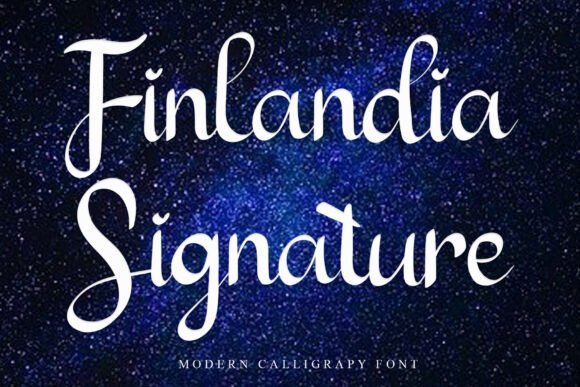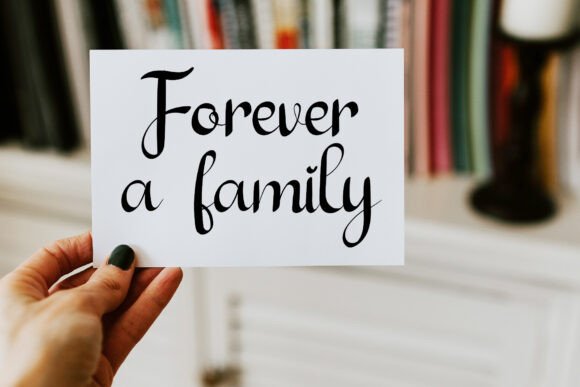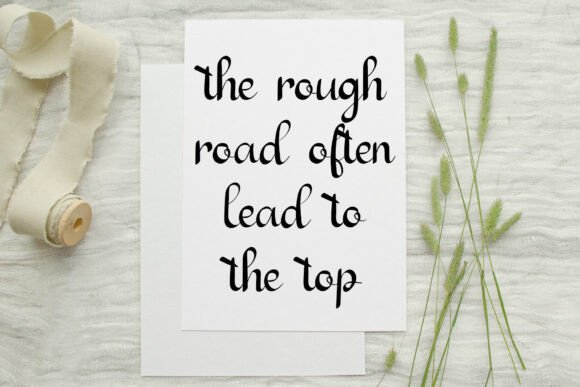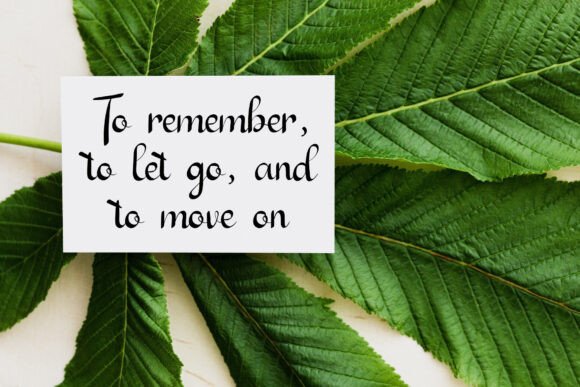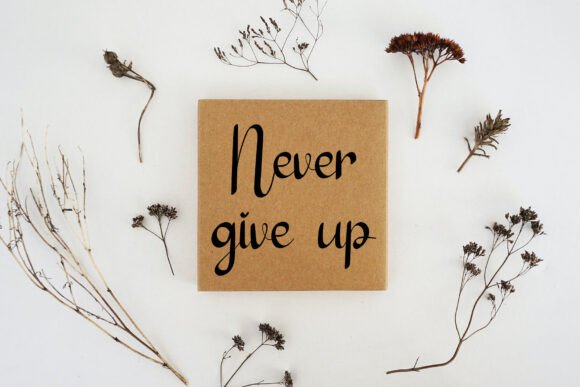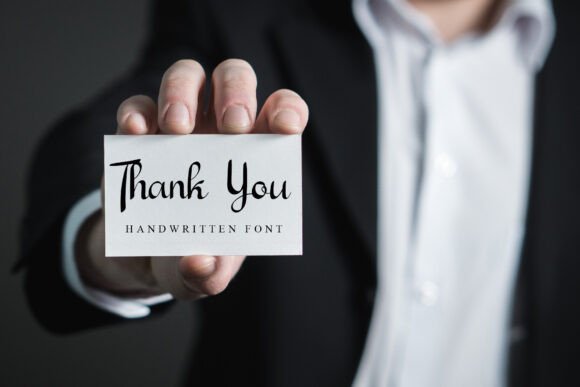
Unlock Your Creativity with Finlandia Signature Font
Have you ever stared at a blank page, struggling to bring your creative vision to life? The blank page can be intimidating, but what if you had the perfect tool to make your ideas shine? For designers, finding the right font can be the difference between a mediocre project and a masterpiece. This is where the Finlandia Signature Font comes in – a unique and elegant font designed to elevate your work.
This beautifully crafted font is perfect for a wide range of applications, from wedding invitations to school assignments. With its professional hand touch, it adds a touch of sophistication and creativity to any project. What sets Finlandia Signature Font apart is its accessibility and versatility, making it an invaluable asset for designers who want to take their work to the next level.
Finlandia Signature Font Key Features
- Font Size and Style: The font family includes multiple weights and styles, ranging from Thin to Extra Bold, allowing for a wide range of design applications.
- Unique Characteristics: The Finlandia Signature Font features a unique blend of Scandinavian and modern design elements, creating a distinctive and recognizable visual identity.
- Resolution and Scalability: The font is designed to be highly scalable, with excellent legibility at various resolutions, including screen and print applications.
- Language Support: The font includes a comprehensive character set, supporting multiple languages, including Latin-based scripts and Cyrillic alphabets.
- Font Metrics and Kerning: The font’s metrics and kerning are carefully crafted to ensure optimal readability and aesthetic appeal, making it suitable for a wide range of design applications.
Review of Finlandia Signature Font
Overall, I was quite excited to work with the Finlandia Signature Font. It has some lovely features that make it a pleasure to use. ✨ The font is elegant, sophisticated, and perfectly suited for corporate branding and high-end designs. The subtle flair on the terminals of the letters adds a touch of personality without being too overpowering.
Here are some of the things that I particularly liked about the font:
- ✨ Elegant and sophisticated feel that works well for corporate branding
- ✨ Perfectly suited for high-end designs
- ✨ Subtle flair on the terminals of the letters adds a touch of personality
However, I do have some reservations about the font. ⚠️ One of the limitations is that it may be too elegant and sophisticated for more casual or playful designs. Additionally, the font may be difficult to read at very small font sizes, which could be a concern for designers who need to use the font in small text areas.
Overall, I would recommend the Finlandia Signature Font for designers who are looking for a high-end, sophisticated font for corporate branding or high-end designs. However, it may not be the best choice for more casual or playful designs.
Getting the Most Out of the Finlandia Signature Font
Use the Finlandia Signature Font to add a touch of elegance and sophistication to your designs. It pairs well with modern and minimalist designs, and is particularly effective for branding and marketing materials.
Some common use cases include:
– Business cards and letterheads
– Brochures and flyers
– Websites and landing pages